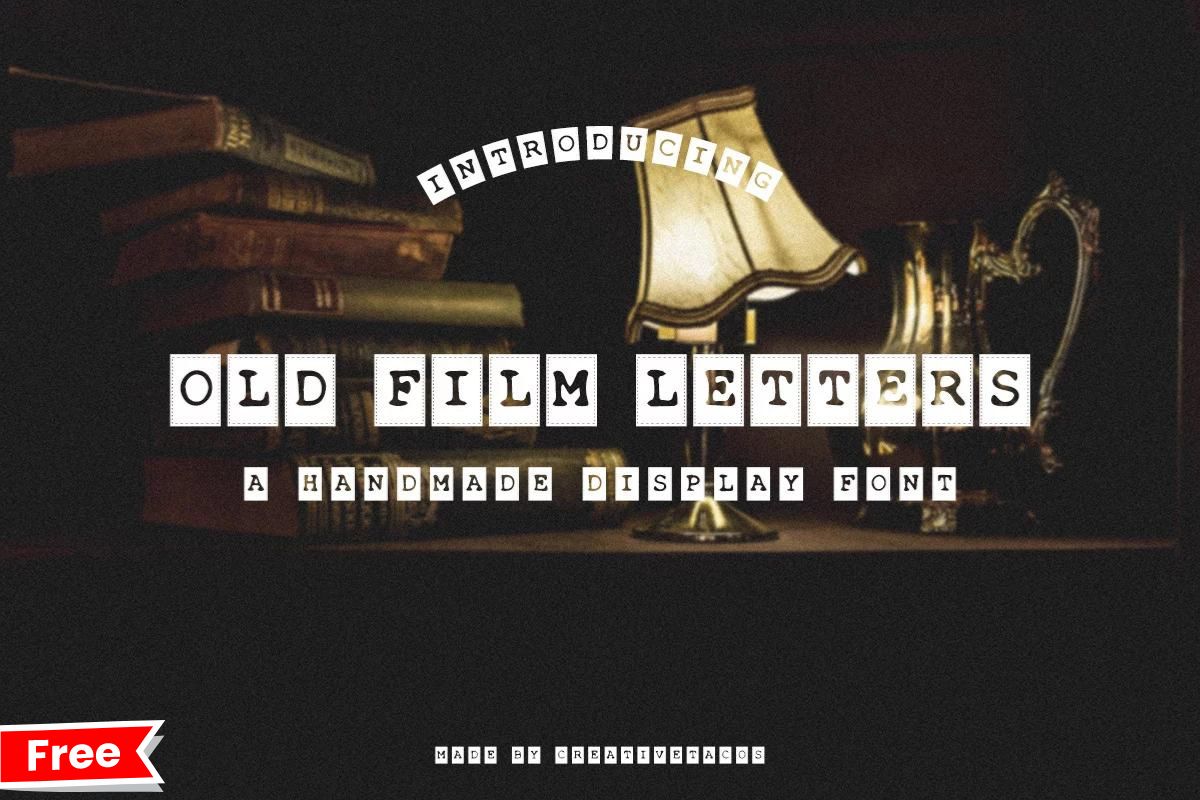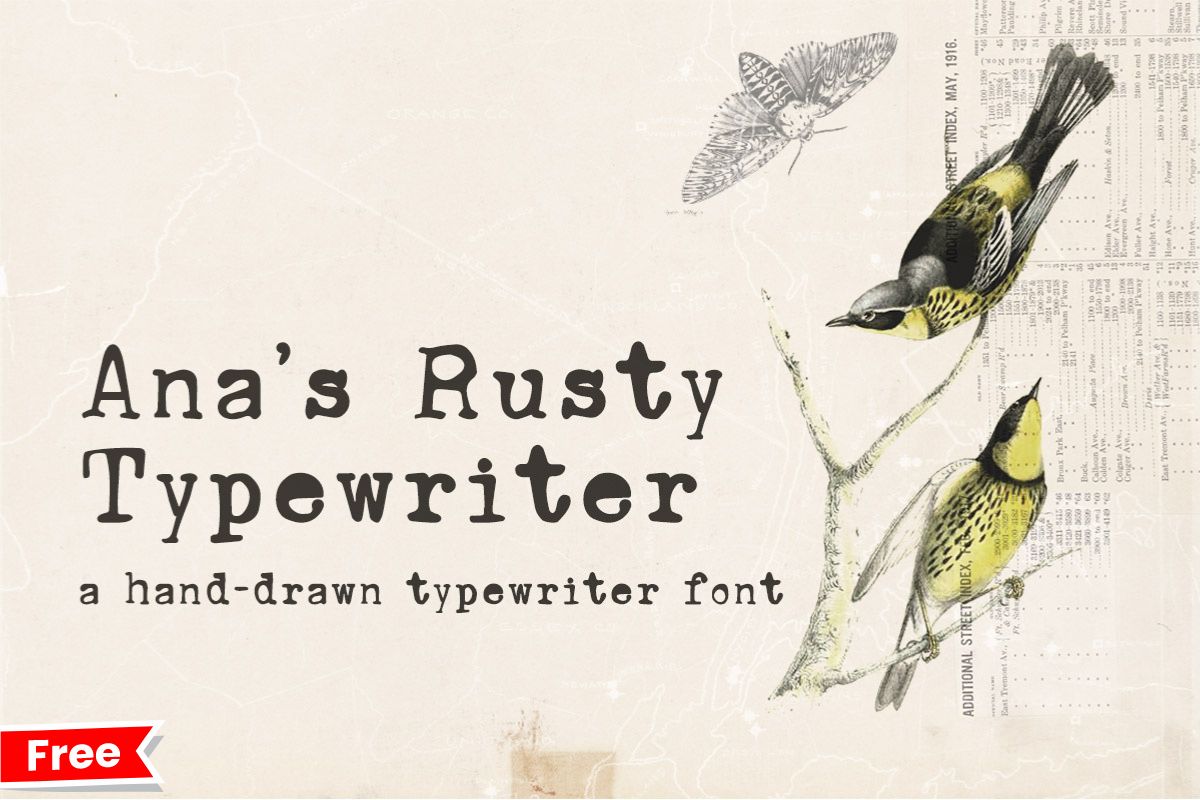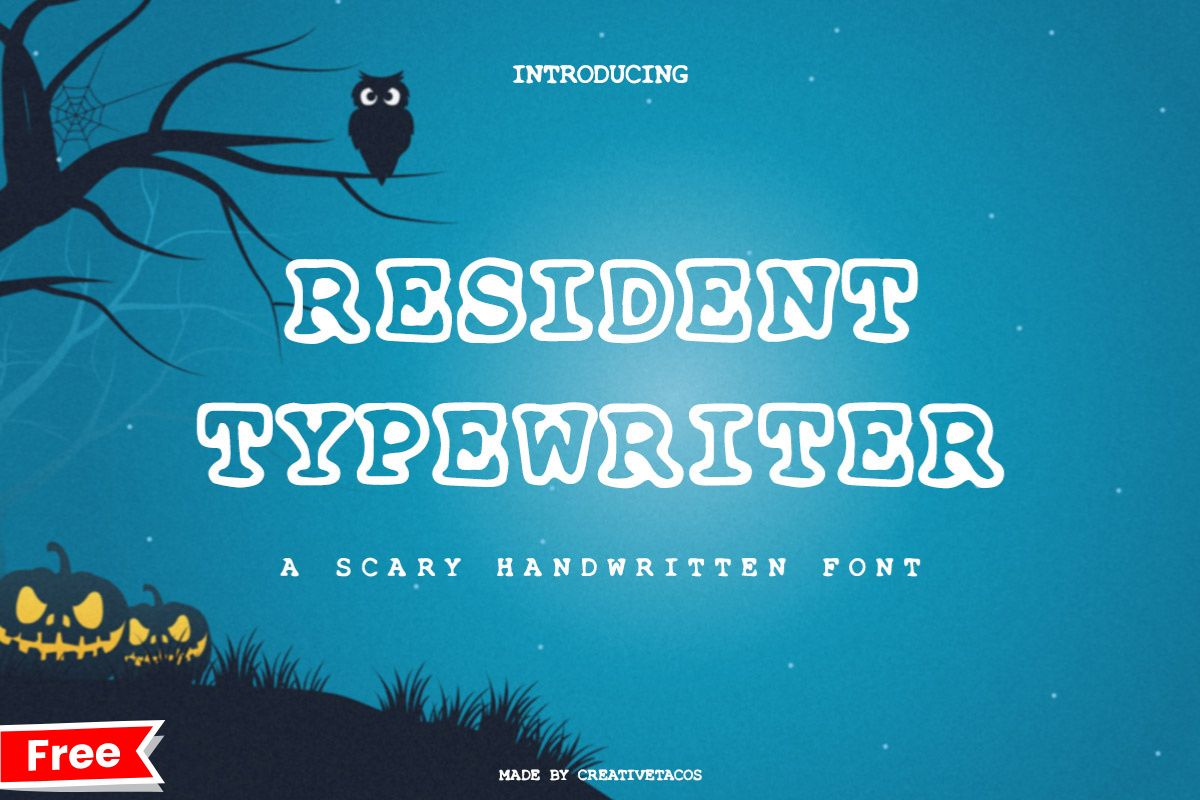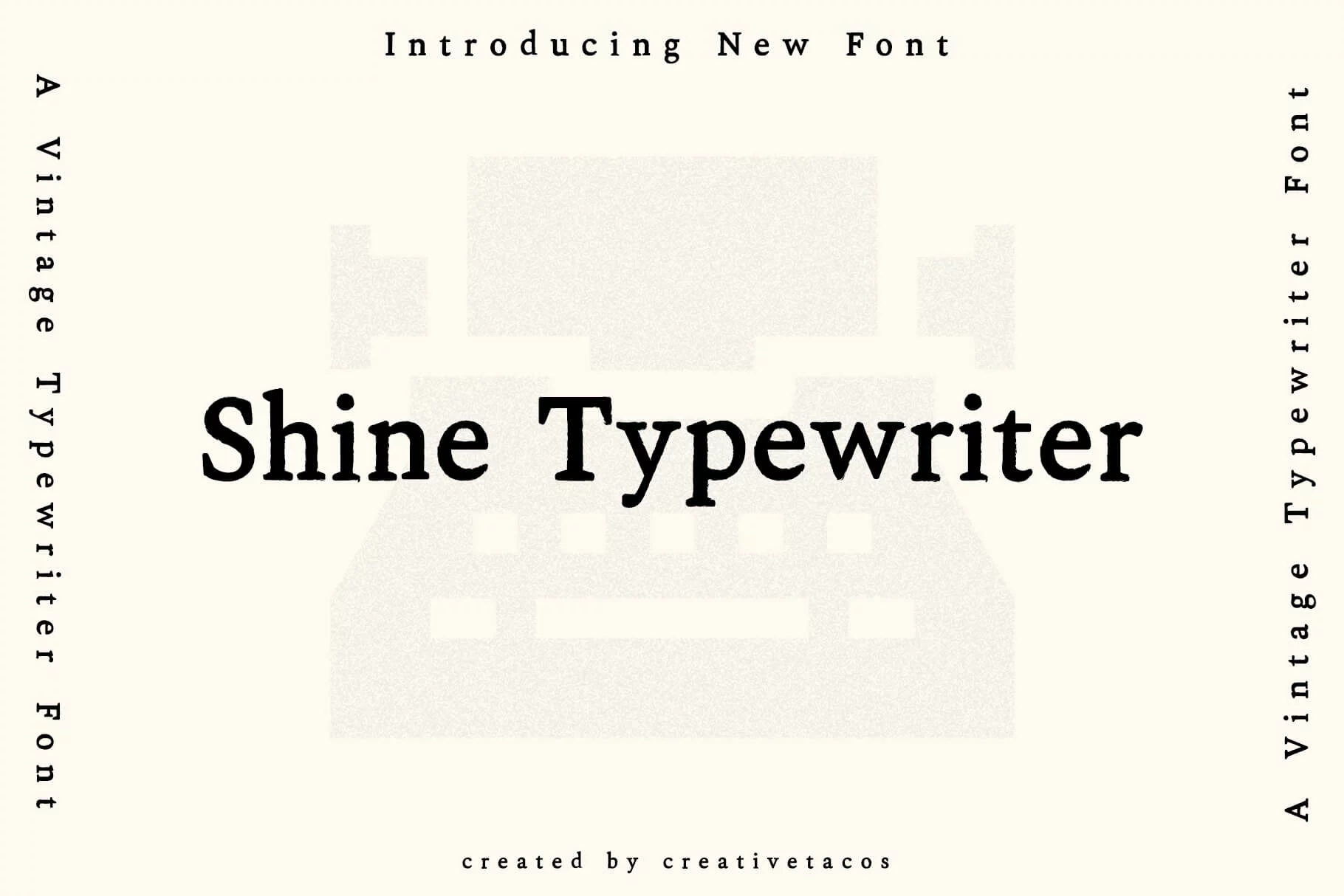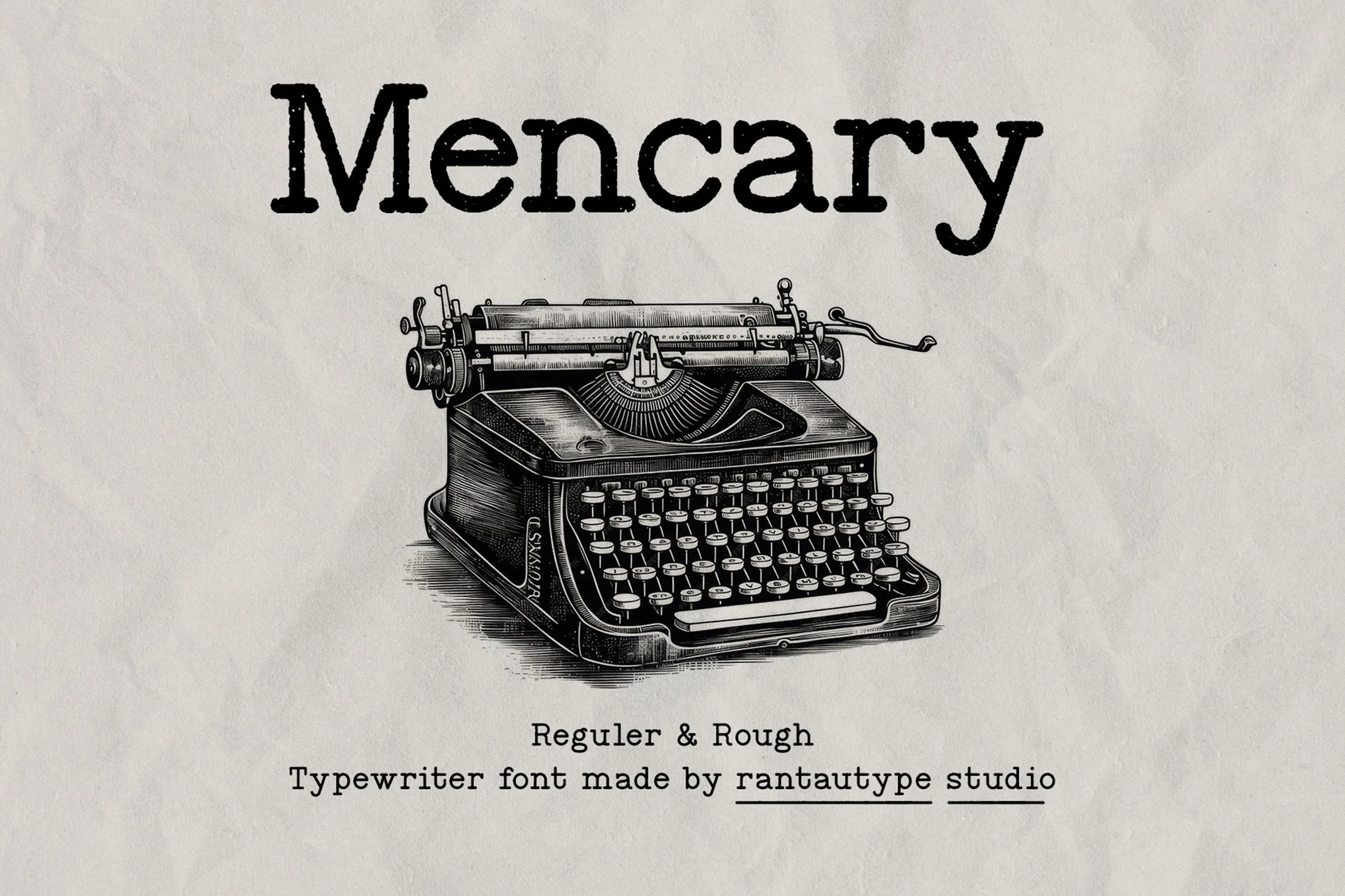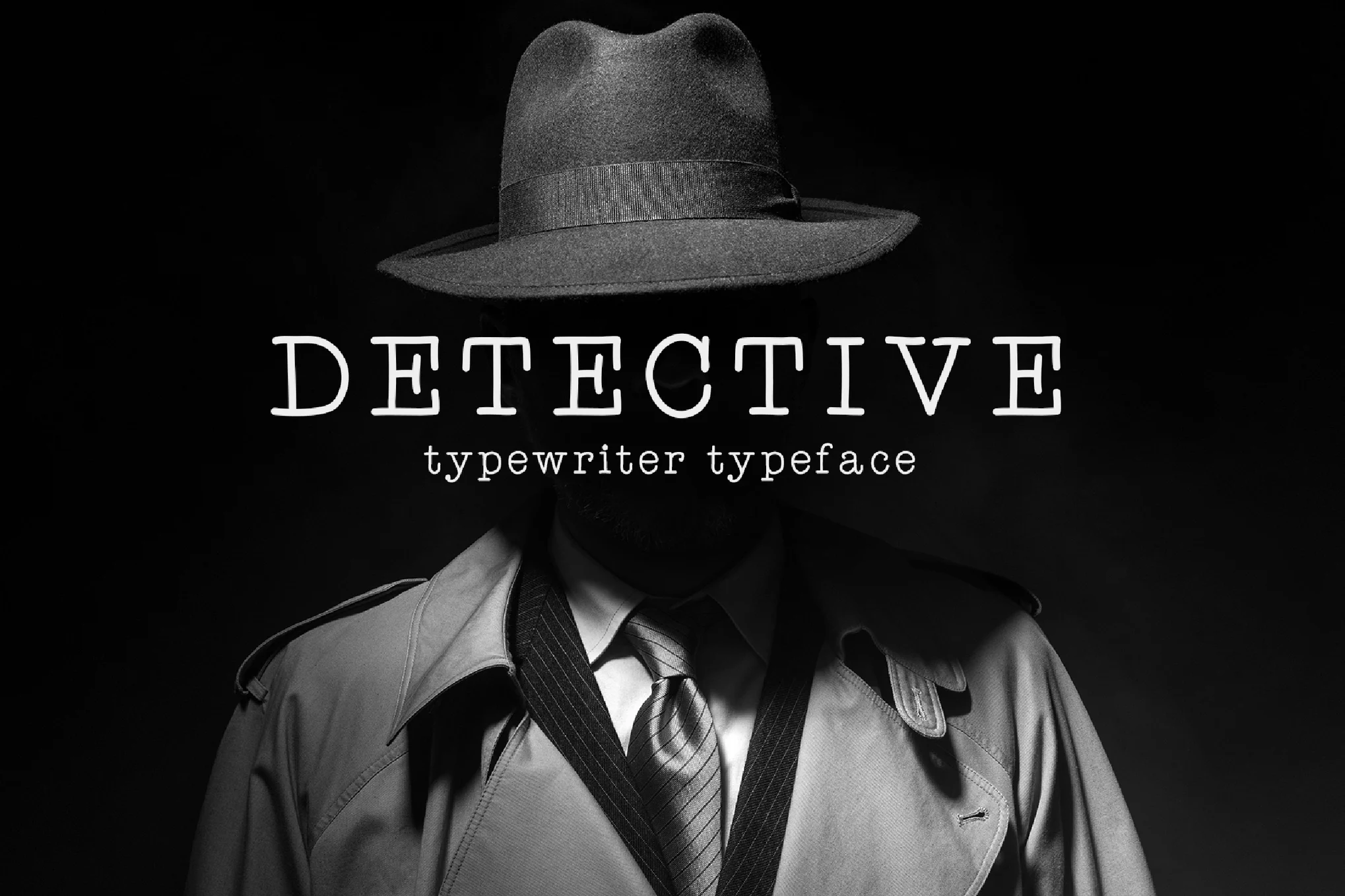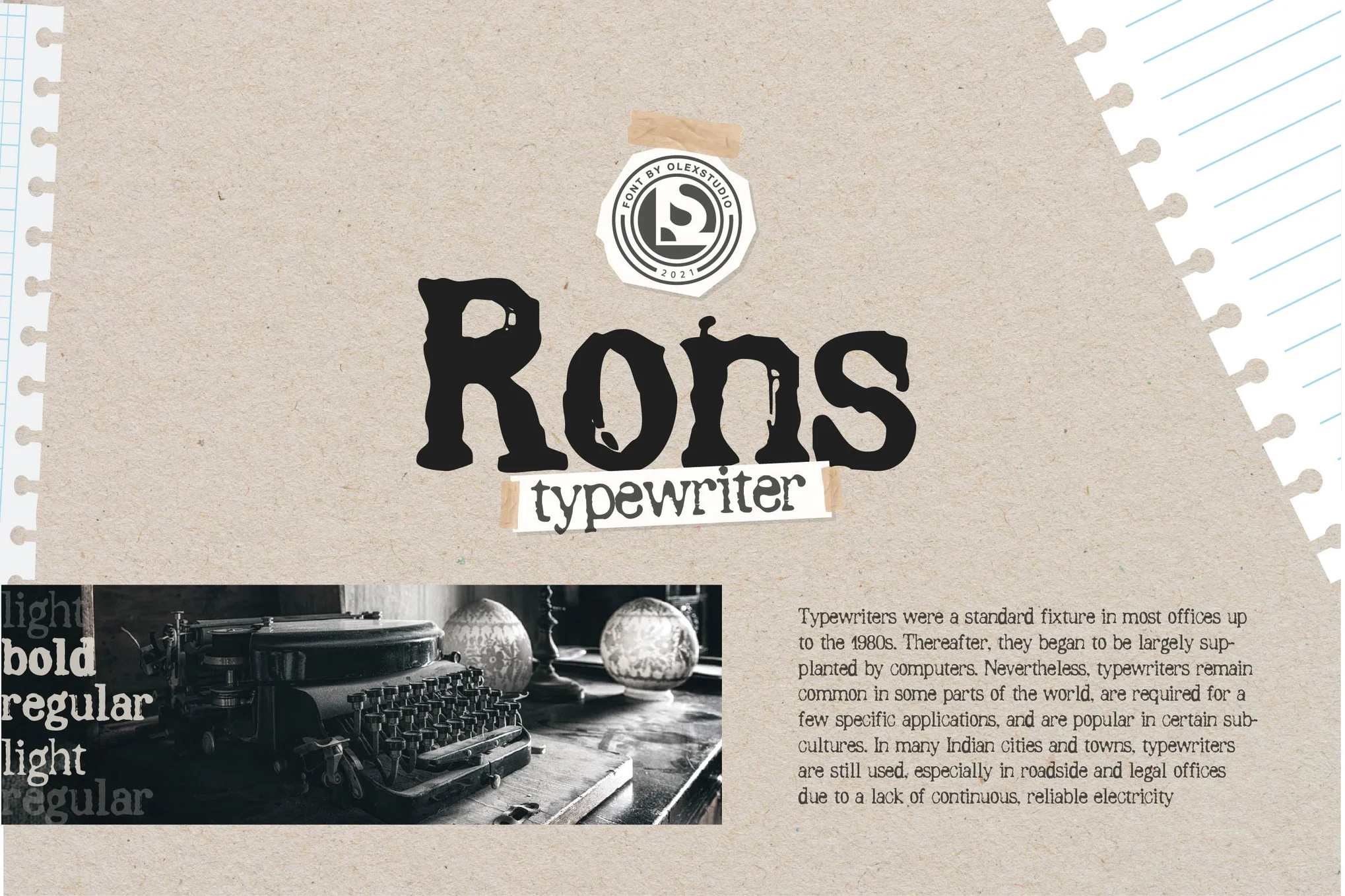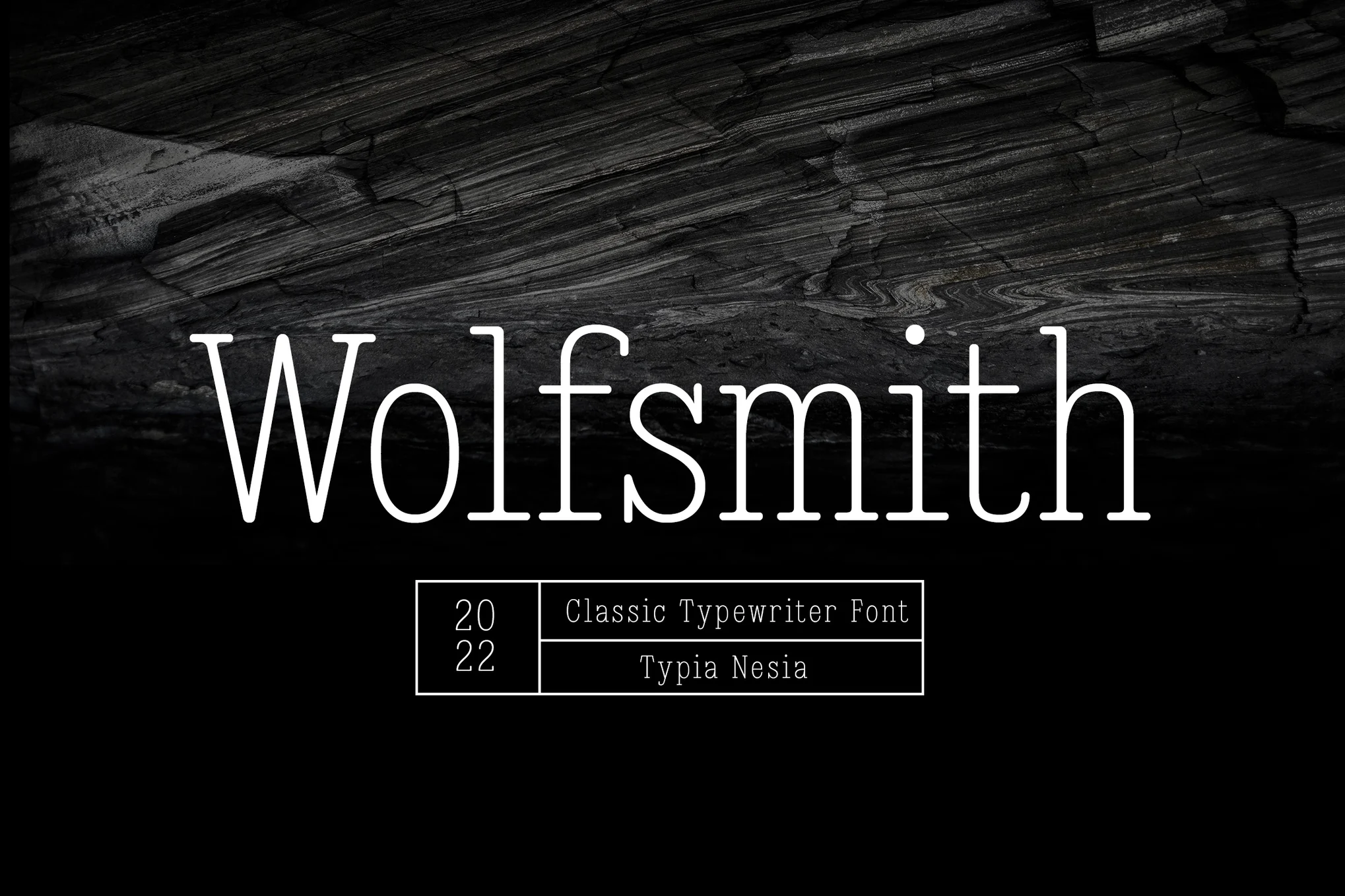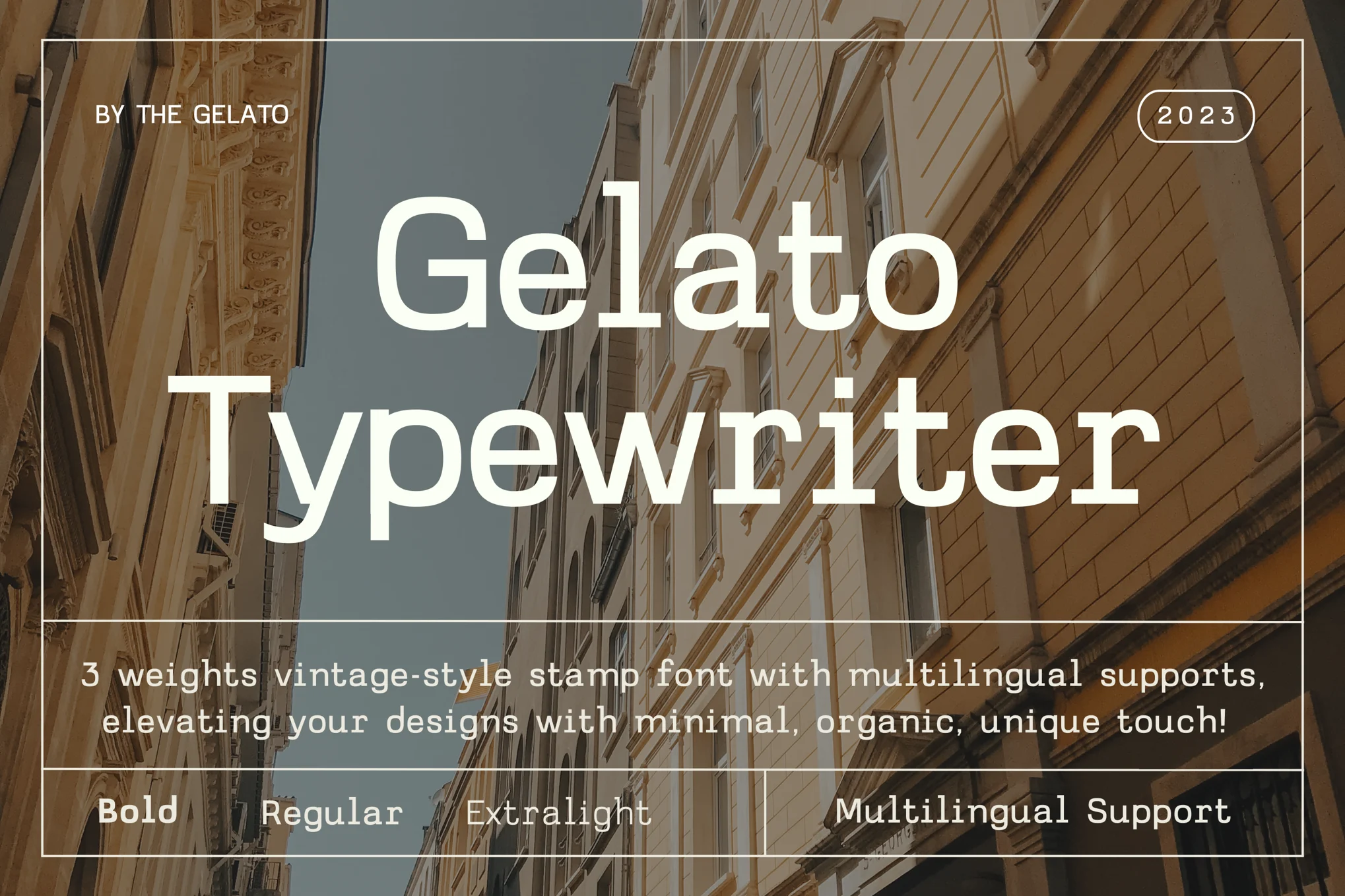
15 Best Typewriter Fonts For 2025
Do you love typewriter fonts and want to find the best ones for your projects? Whether you are working on something that needs a vintage or classic look, typewriter fonts always bring a special charm. These fonts remind us of old times when typewriters were used to write everything. Today, they are still popular because they make designs feel personal and handmade.
If you're searching for the perfect typewriter font to make your designs stand out, you’re in the right place! We’ve picked 15 of the best typewriter fonts for 2025. Whether you’re designing a retro logo, a book cover, or invitations, these fonts will give your work that timeless, classic feel you want.
Established Typewriter Letter Font
Established Typewriter Font
Established Typewriter is a vintage-inspired font designed to give your work an authentic, classic feel. This elegant typeface brings a nostalgic charm, perfect for projects aiming for a timeless appearance. Whether you’re designing a historical novel cover, a vintage-themed invitation, or retro branding, Established Typewriter provides a unique style that enhances your designs with a classic touch.
Stamp Press – Retro Typewriter Font
Stamp Press is a font that looks like it was made on an old typewriter. The letters are a little uneven, giving it a real, old-school feel. This font is great for things like posters, logos, or anything where you want an old-time, retro style.
Shine Typewriter Serif Font
Shine Typewriter is a fun, creative font that looks like it was written by hand. It has an old-fashioned vibe that’s perfect for packaging, logos, or posters. If you want your design to have a playful yet vintage look, this font is a great choice.
Evil Typewriter Handcrafted Font
Evil Typewriter is a spooky font, perfect for Halloween or horror-themed designs. It has a messy and scary look, great for anything that needs a haunted or creepy style. You can also use it for logos, posters, or anything that requires a bold, grungy feel.
Typewriter Inked Handwritten Typeface
Typewriter Inked brings a smooth and stylish look to your designs. This handwritten font adds a confident, luxury feel to anything you’re working on, whether it’s a logo, headline, or invitation. It's a great pick for giving your work a unique and special feel.
Old Film Typewriter Letters Display Font
Old Film Letters Display Font
Old Film Letters is a decorative font inspired by the look of old movie titles. Its antique feel makes it perfect for adding a vintage style to logos, wedding invites, or social media posts. This font is all about bringing an old-time movie look to your work.
Anas Rusty Typewriter Font
Anas Rusty Typewriter looks like it came straight from an old, grungy typewriter. It’s hand-drawn, giving your work a messy, vintage style. Use this font for logos, quotes, social media posts, or any work that needs a rugged, worn look.
Resident Typewriter Handwritten Font
Resident Typewriter is a creepy, handwritten font, great for Halloween designs. It adds a scary, eerie feel to your work, making it perfect for spooky events or horror designs. It’s also great for invitations, logos, and any work that needs a haunted look.
Bygonest - Old Typewriter Font
Bygonest is inspired by real, old typewriters. Its detailed, rustic style makes it perfect for designs like newspapers, posters, and logos. If you want to give your work a real vintage style, this font is a fantastic option.
Mencary A Old Typewriter Font
Mencary is inspired by vintage writing machines and comes in two styles: clean and rough. This gives you the option to choose a neat or more worn-out look for your designs. Mencary is perfect for logos, ads, stationery, or any creative work that needs a handwritten style.
Detective - Typewriter Typeface
Detective is a classic, old-fashioned typewriter font made by hand. It combines the look of vintage typewriters with modern style. It’s perfect for business documents or any design that needs a classic, personal feel.
RONS - Typewriter
Rons Typewriter is a lovely serif font that works well on all types of designs. With both uppercase and lowercase letters, plus international symbols, it’s a versatile font for logos, invitations, or any design that needs a clean, old-fashioned look.
Manuscript - Vintage Typewriter Font
Manuscript is a classic typewriter font that gives your work a vintage feel. It’s a great choice for logos, stationery, or any design that needs a timeless and simple style.
Wolfsmith - Classic Vintage Typewriter Serif Font
Wolfsmith Typewriter Font is perfect for designs like classic logos, wedding invitations, and home décor. Its vintage look adds a traditional feel, making it ideal for anything that needs an old-school style.
Gelato Typewriter Minimal Vintage Stamp Font
Gelato Typewriter is a vintage stamp font that comes in three different weights. It’s great for giving a simple, organic look to logos, business cards, or banners. It’s a flexible font that works well for many types of designs.
Wrapping Up
Whether you’re looking to give your designs a vintage flair or a classic old-school feel, typewriter fonts are a fantastic choice. They bring a sense of history, creativity, and nostalgia to your work, making them versatile for many uses like logos, invitations, social media posts, and more. The 15 fonts we’ve listed here are among the best choices for 2025, giving you plenty of options to make your designs pop with that timeless style.
FAQ
What types of projects work best with typewriter fonts?
Typewriter fonts are great for vintage-themed designs, book covers, retro branding, logos, invitations, posters, and even Halloween or horror-related work.
Are typewriter fonts suitable for digital or print media?
Yes, typewriter fonts work beautifully in both digital and print media. They are flexible enough to enhance websites, social media graphics, magazines, and more.
Can I use typewriter fonts for professional branding?
Absolutely! Many typewriter fonts offer a professional yet vintage feel, making them perfect for branding, logos, and business correspondence.